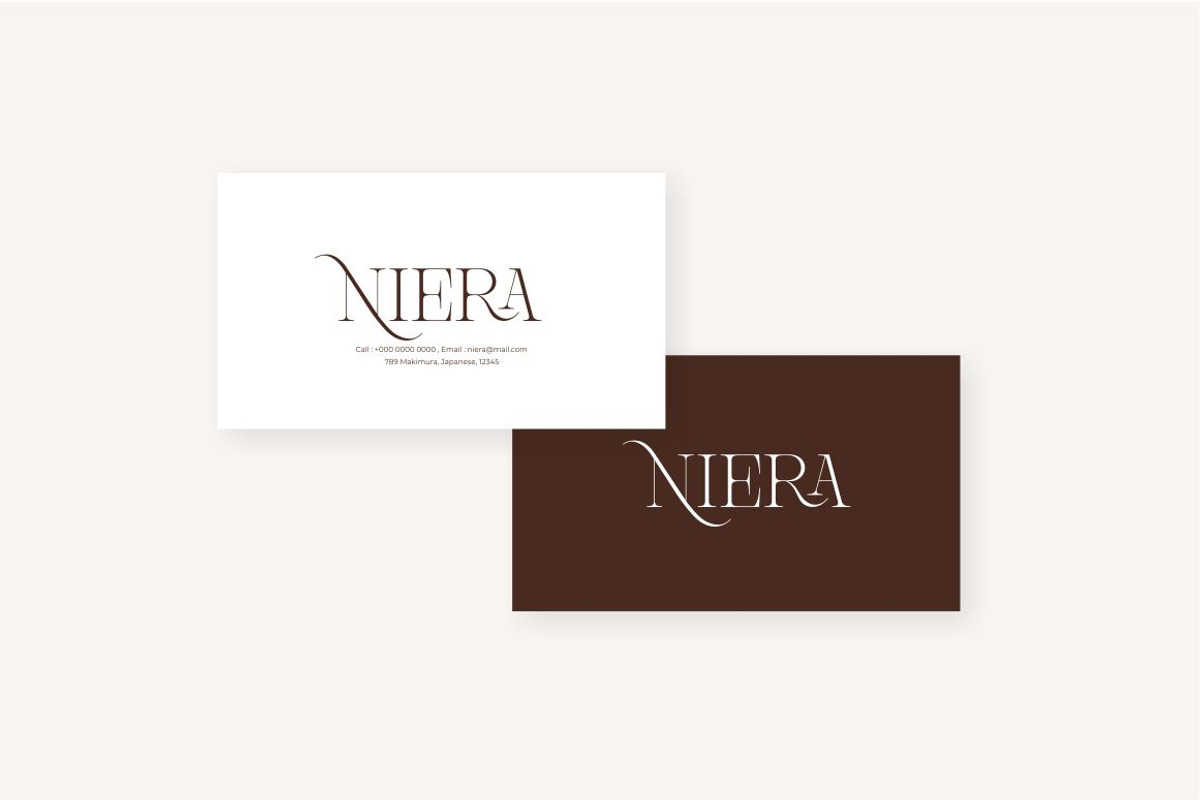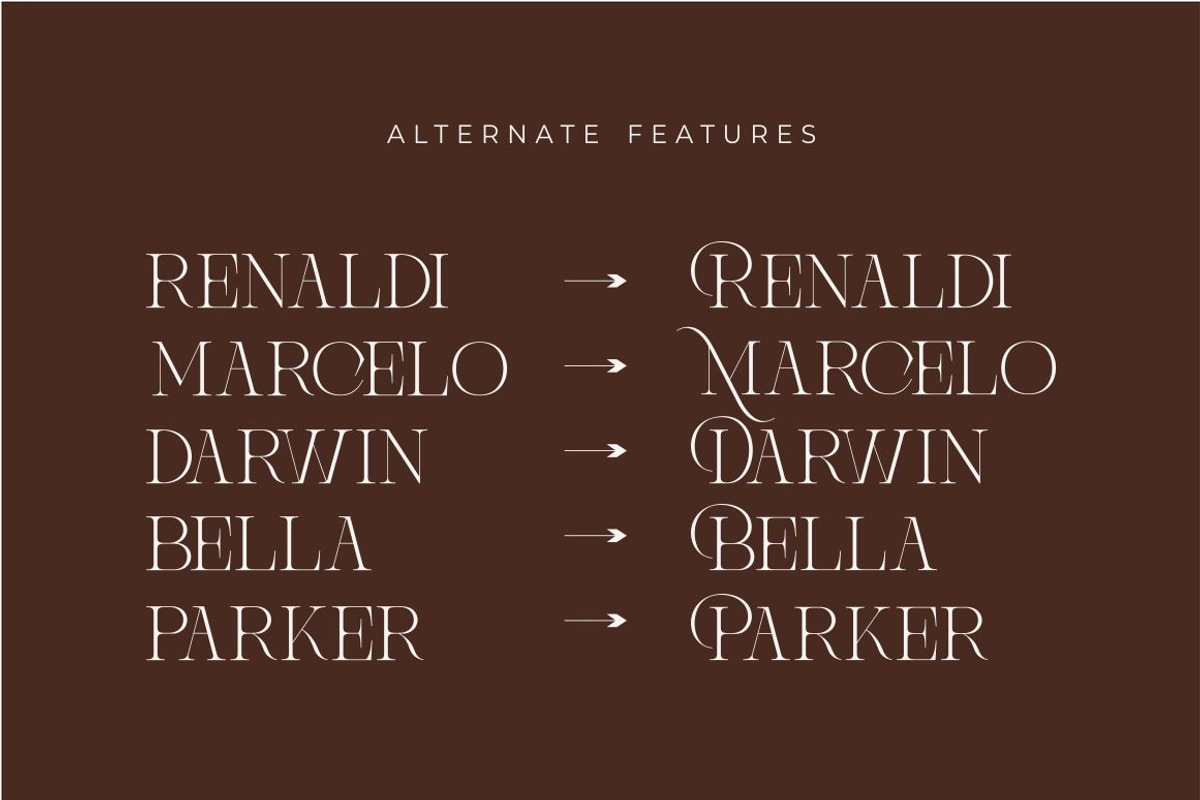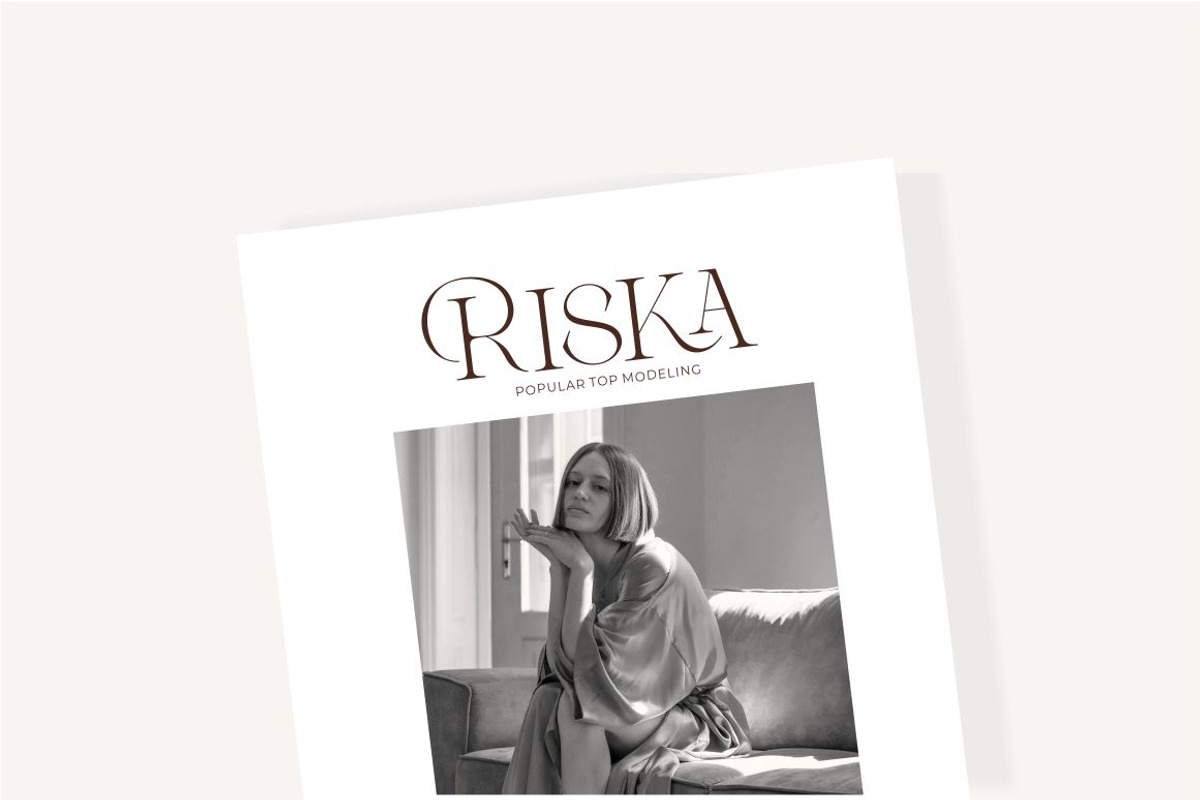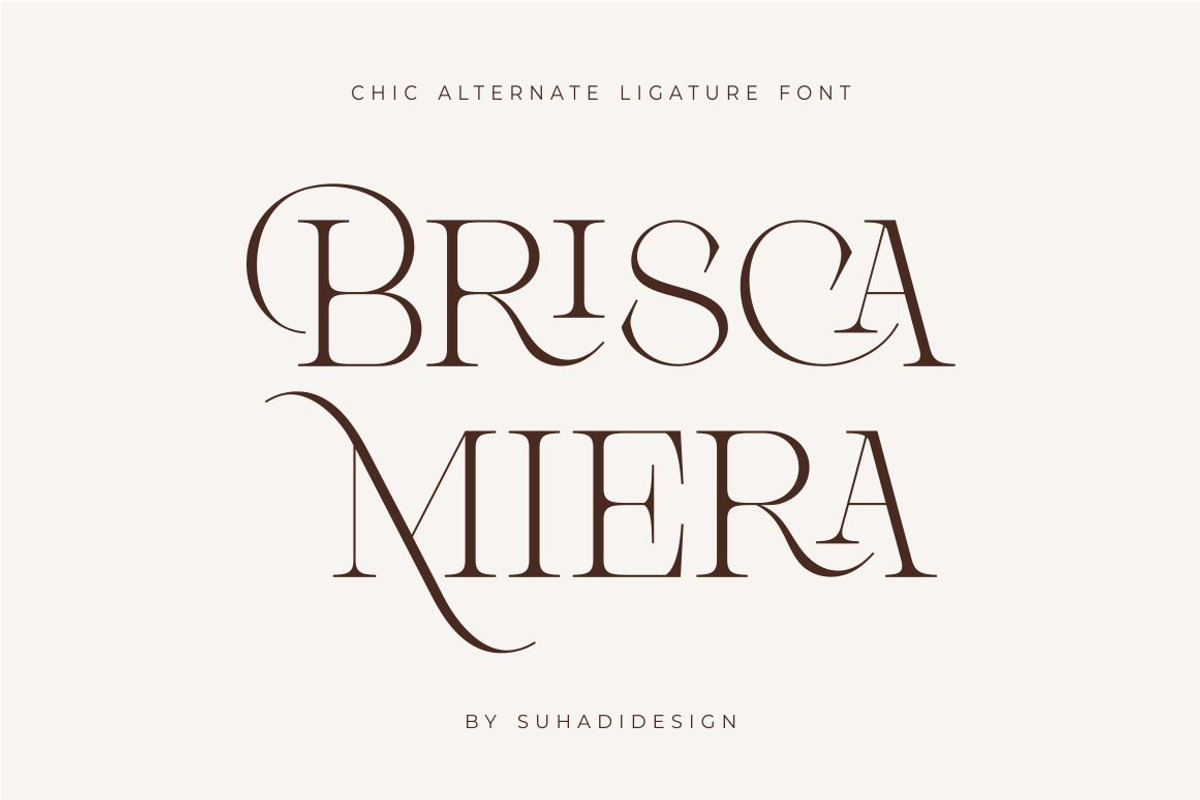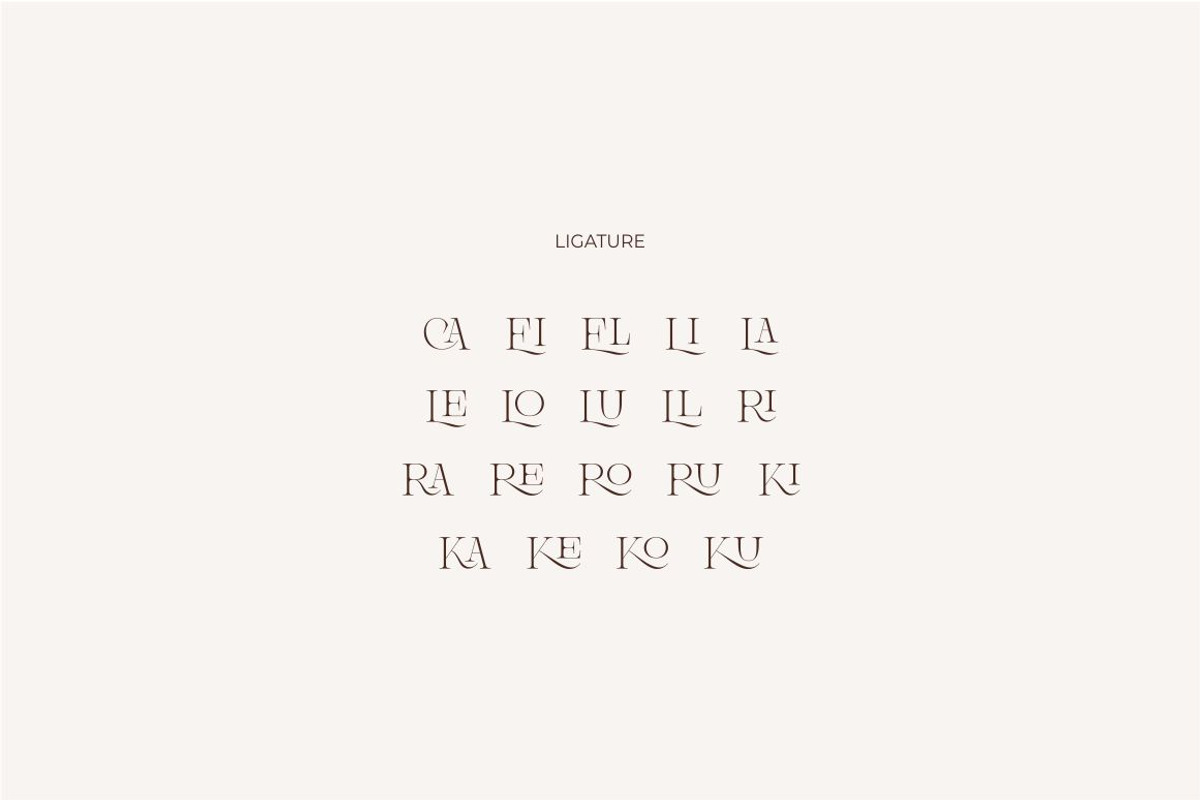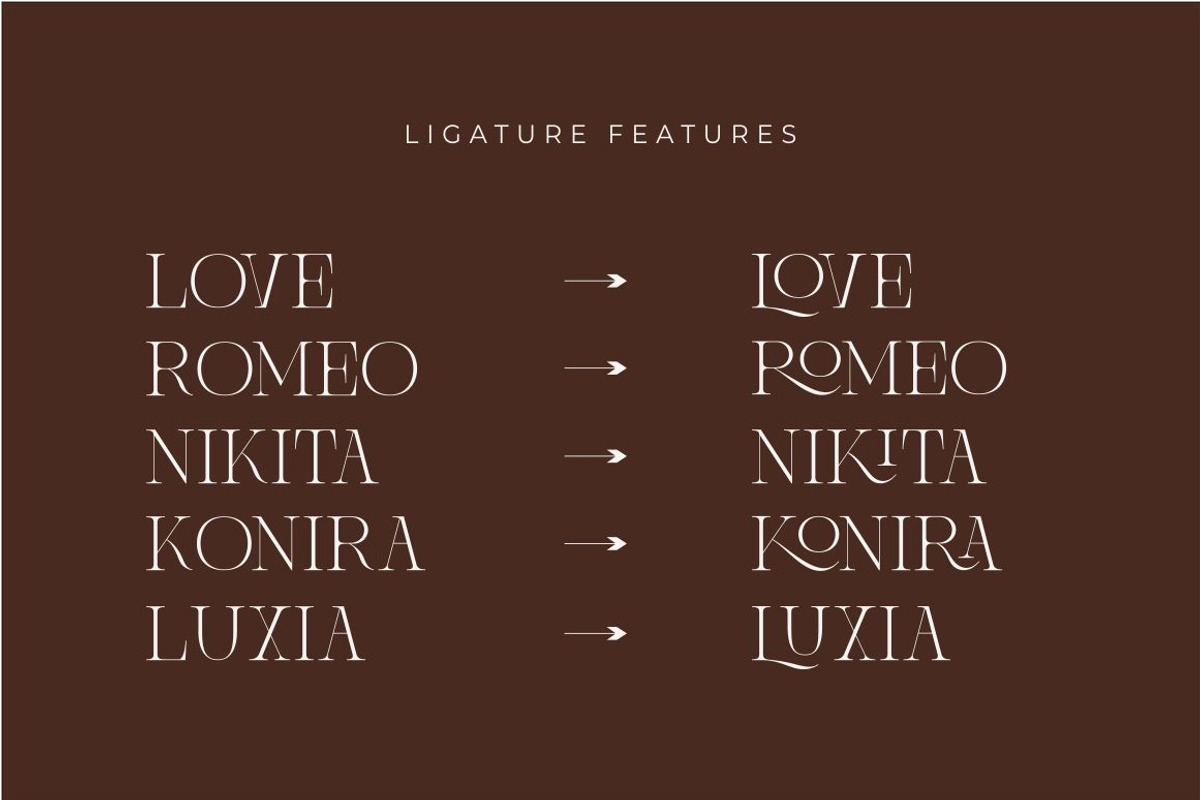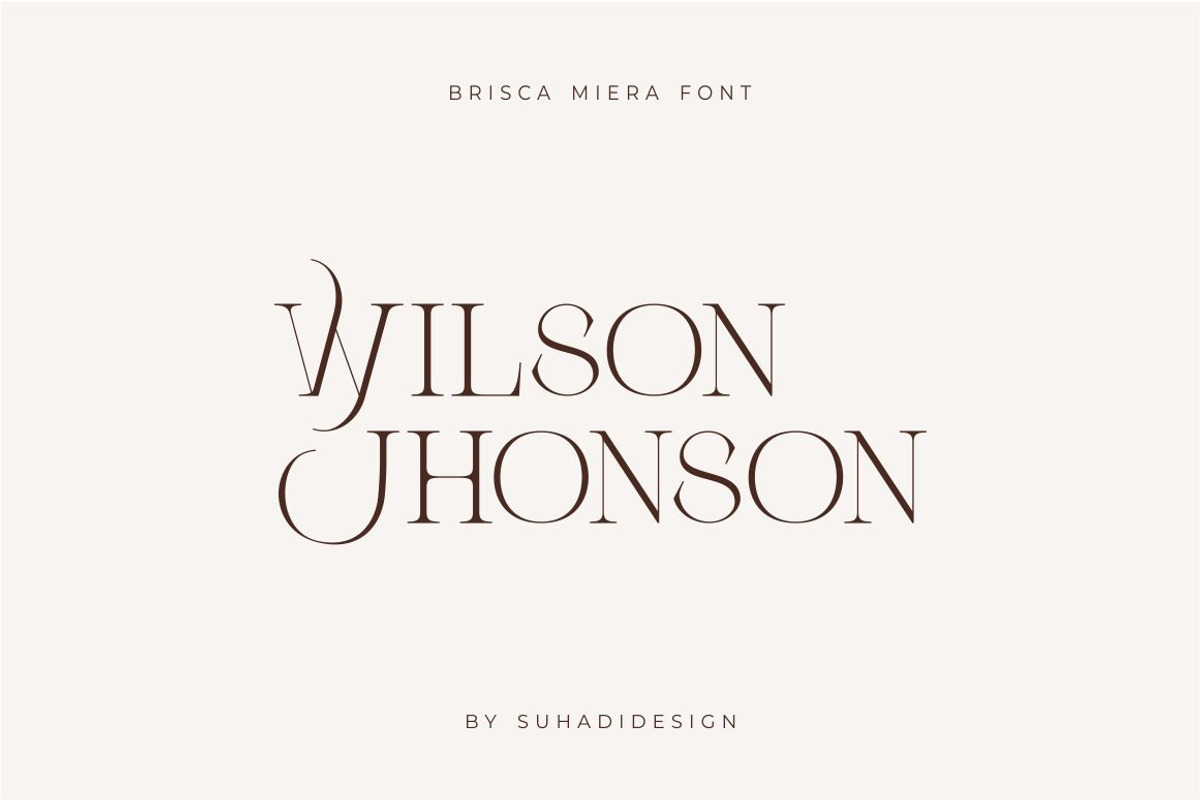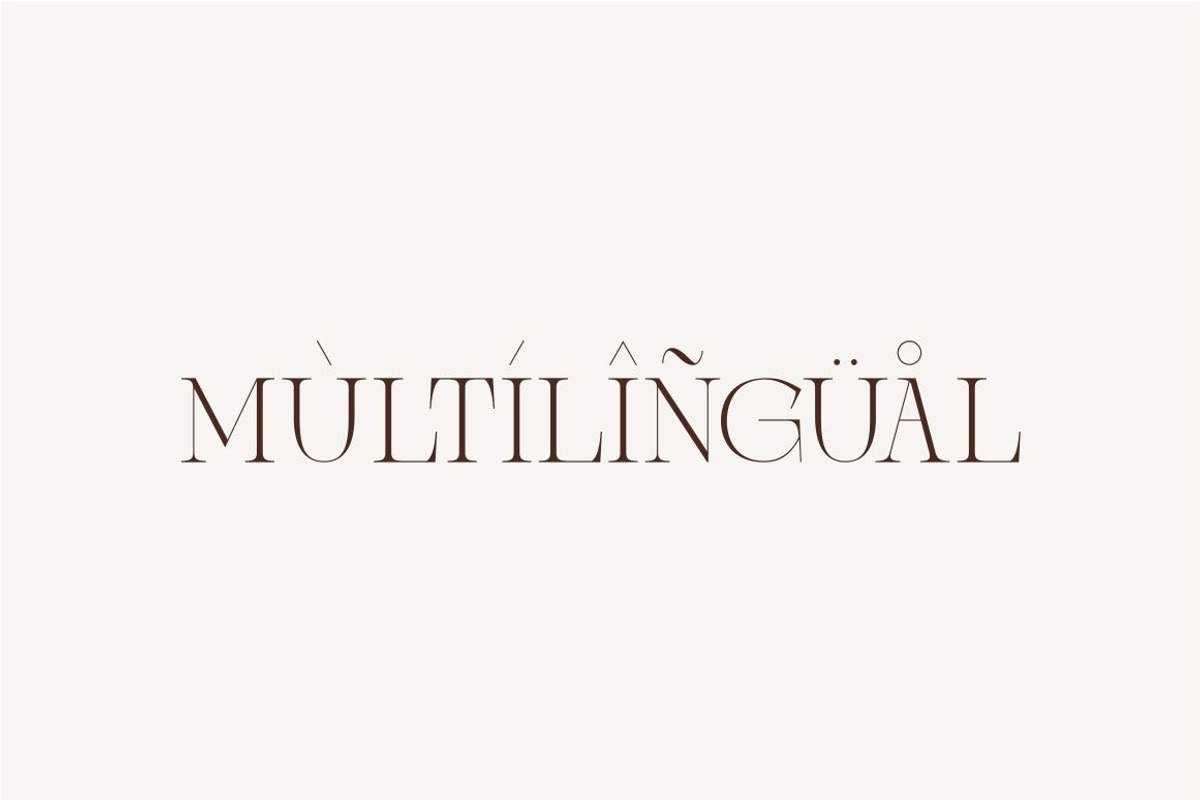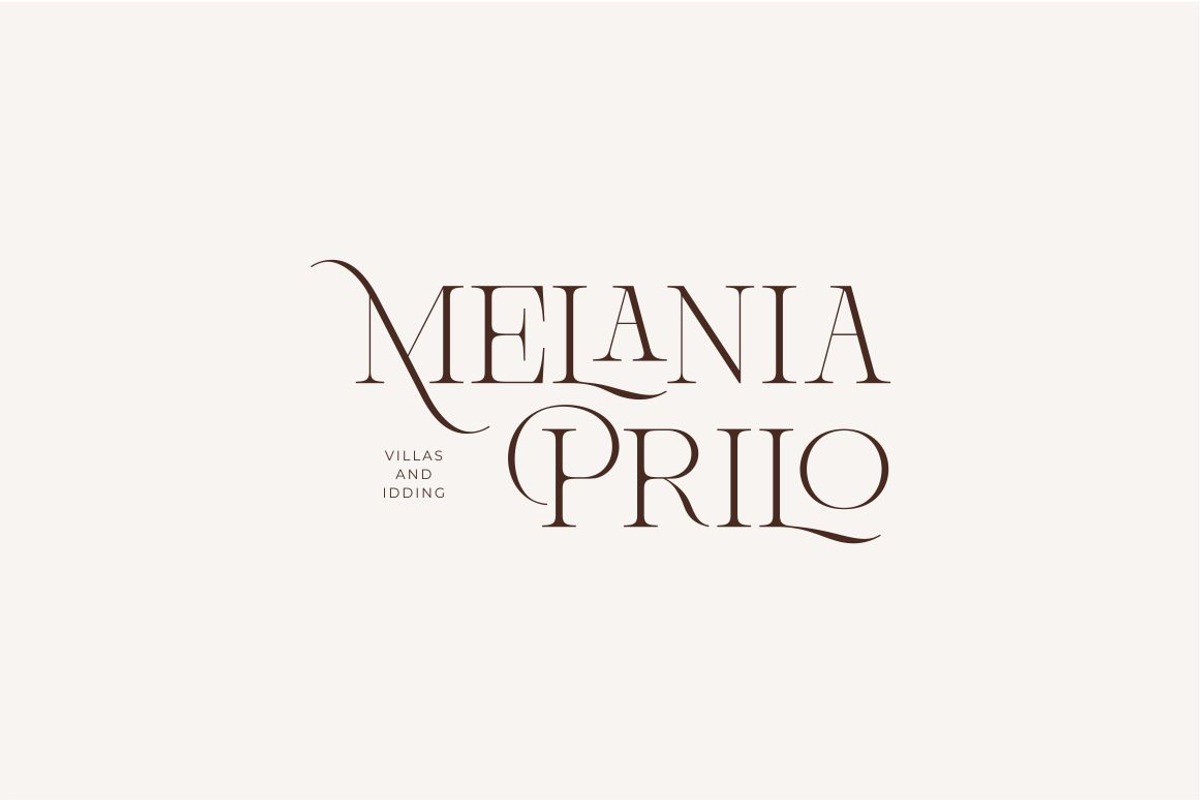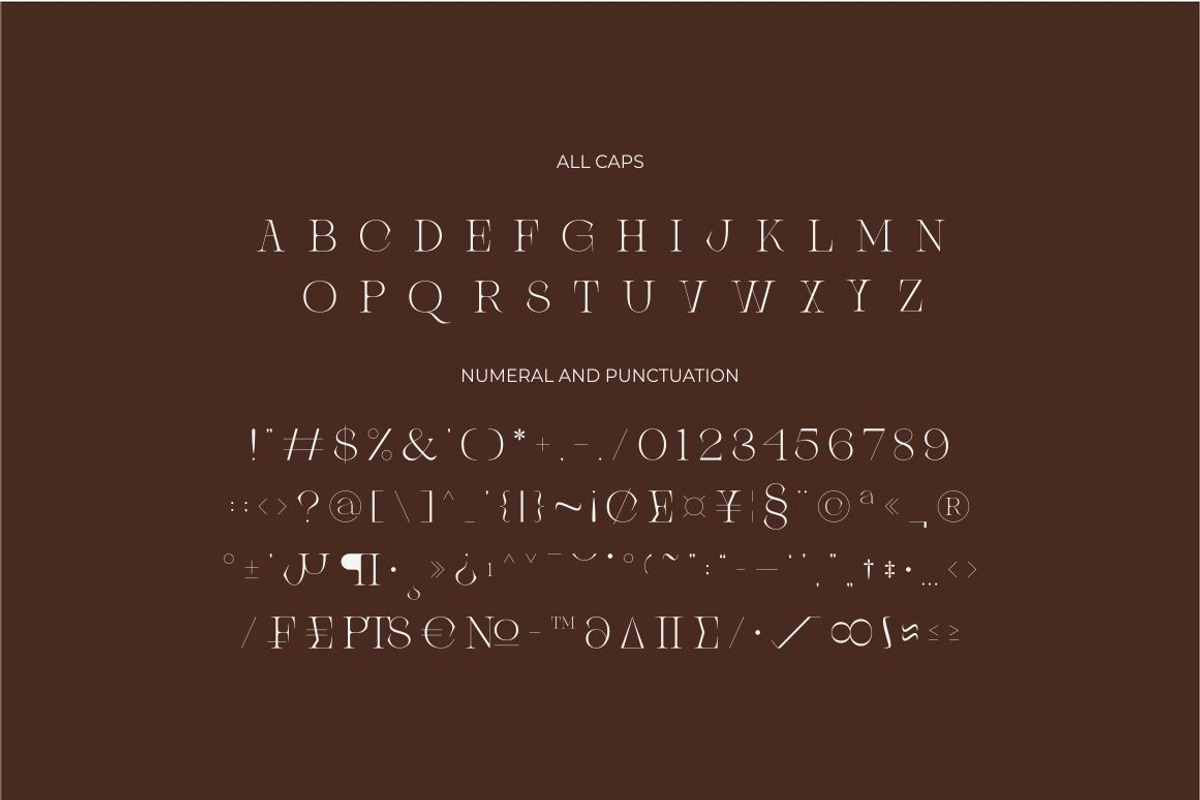
Brisca Miera - Chic Ligature Font
Brisca Miera - Chic Alternate Ligature Serif Font
Hi ladies and gentlemen! The latest stylish modern font has arrived which is a font that many ladies and gentlemen are looking at. Namely the Brisca Miera font. The Brisca Miera font is a chic and elegant serif font. With a chic model with a stylish fastener, it has become a market favorite. We keep this font looking elegant, classy, stylish. Brisca Miera Font is a great choice for magazines, design, books, publications, branding, brand names, business cards, social media, classy design, newspaper, branding, beauty and other projects. Brisca Miera Font is here to improve the quality of your designs.
• All Uppercase • Alternate • Ligature • Multilingual Support • Numerical • Punctuation